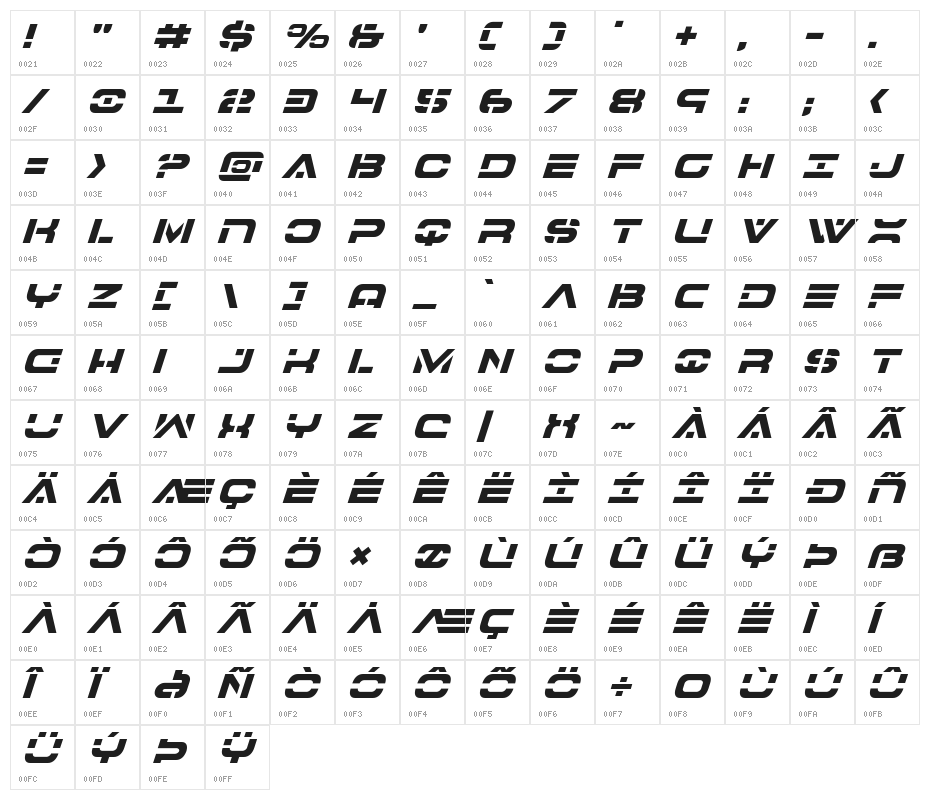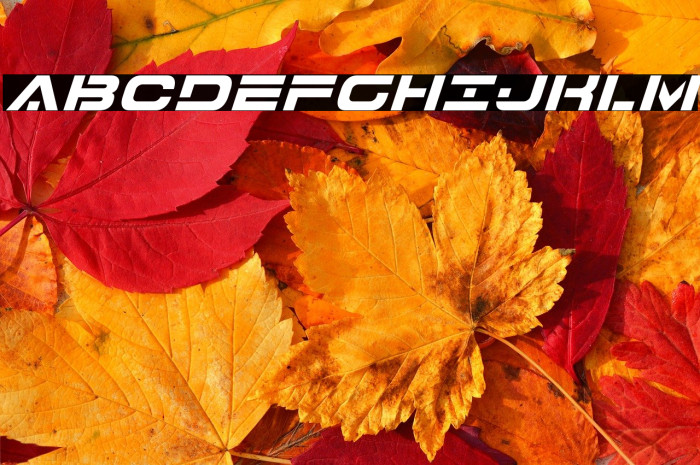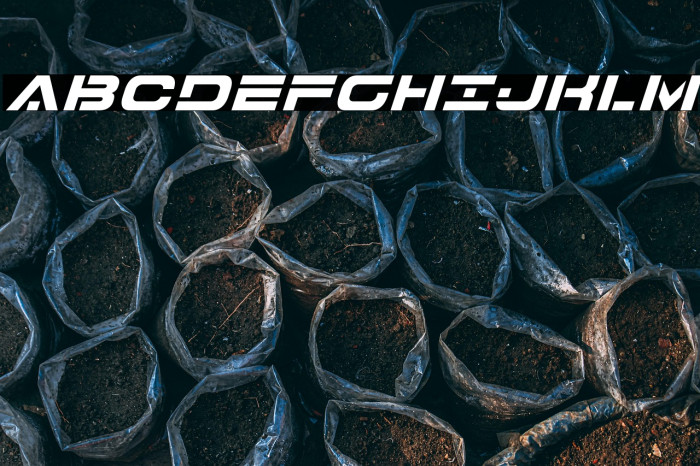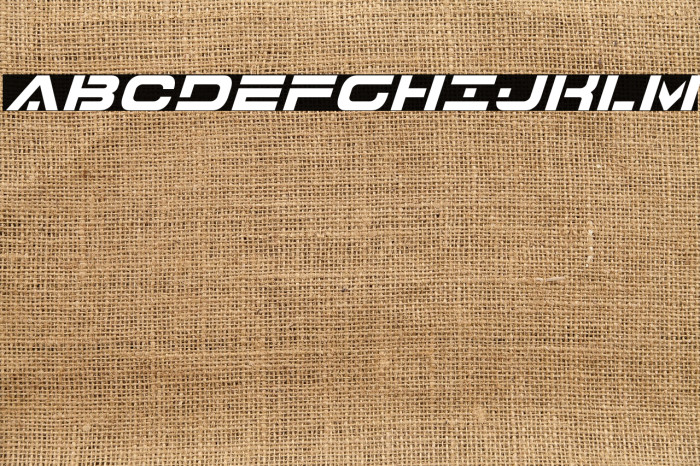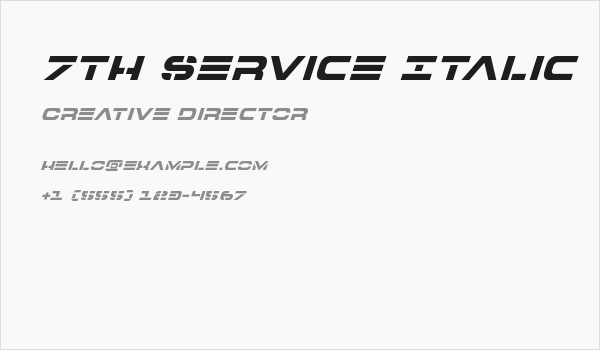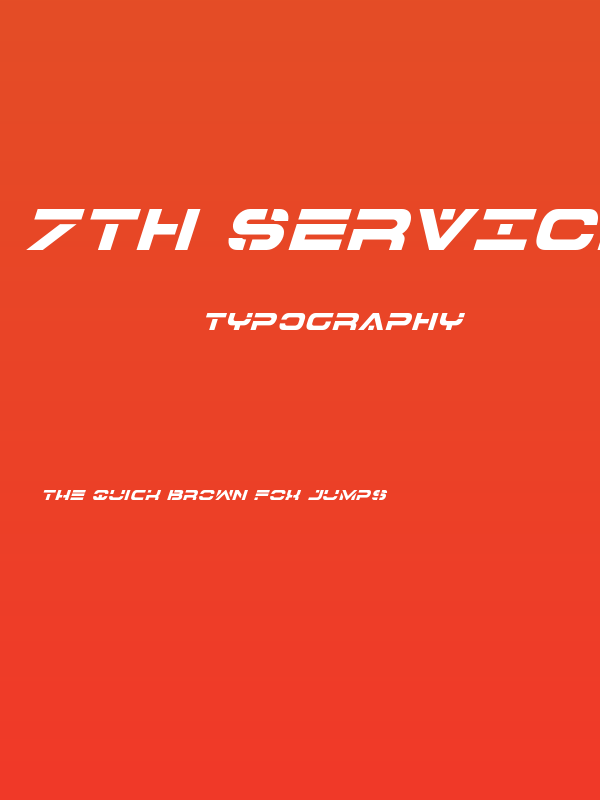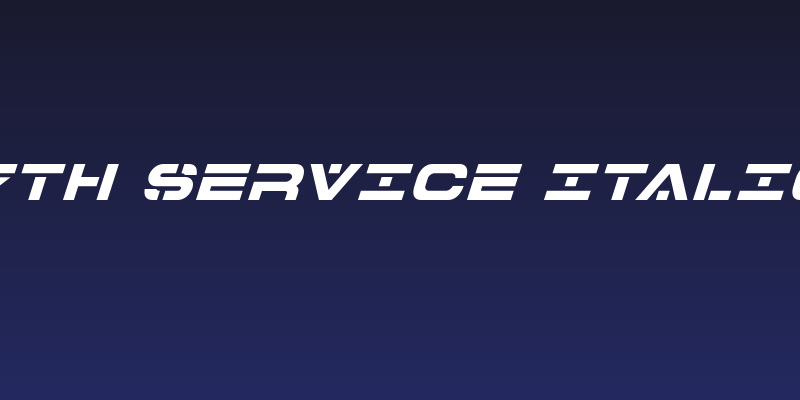
7th Service Italic Font
7th Service Italic Description
This font features a bold, futuristic design with a distinct italic slant, giving it a dynamic and forward-moving appearance. The characters are constructed with geometric precision, incorporating sharp angles and clean lines. The uppercase letters are particularly striking, with unique cutouts and a strong presence. The numbers and special characters maintain the same bold style, ensuring consistency across all elements. This font's modern aesthetic makes it suitable for projects that require a contemporary and edgy look.
| Proposed Projects | Ideal for technology branding, sci-fi movie posters, video game titles, and modern advertising campaigns. |